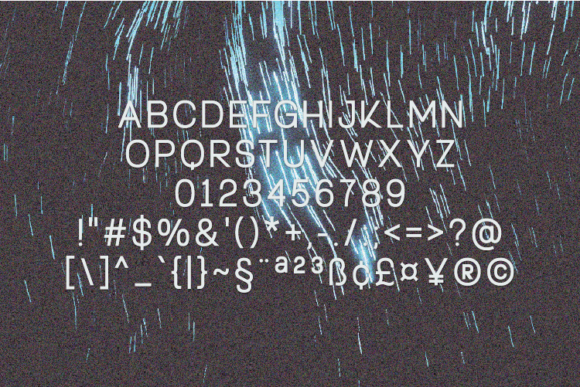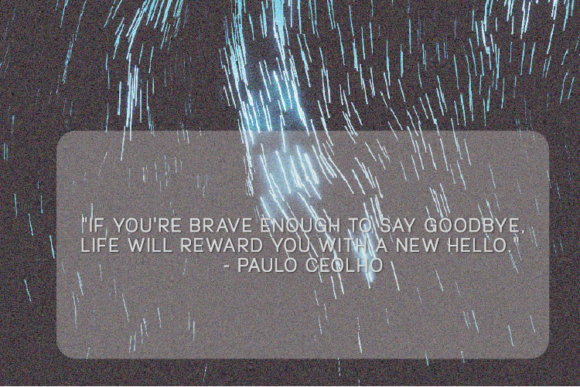
Introduction to Oklahoma Font
Oklahoma is a cool and simple lettered sans serif font, designed to complement every project you’re working on.
Use to create beautiful headings, gorgeous invitations, stunning logos, and so much more .
Why Choose Oklahoma Font?